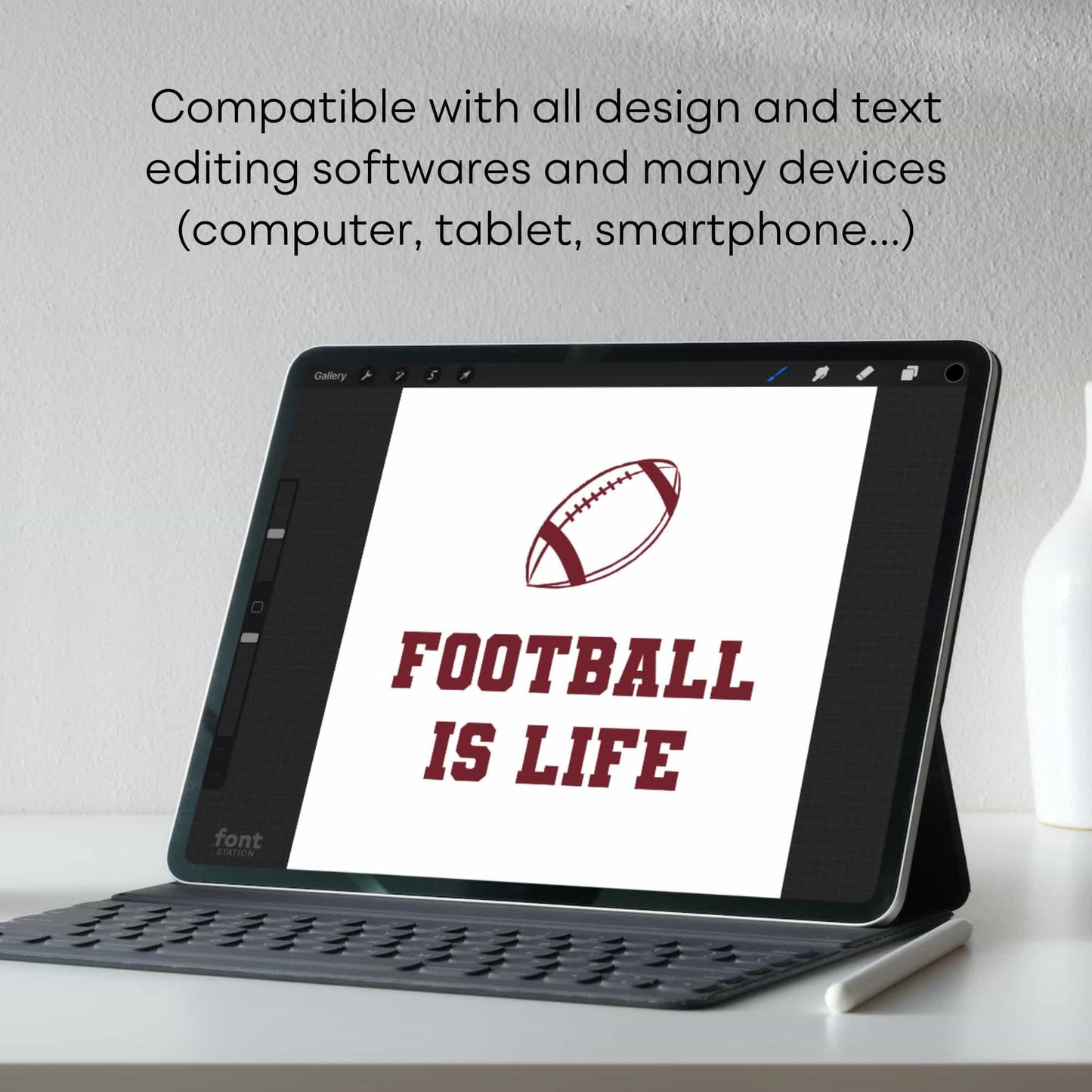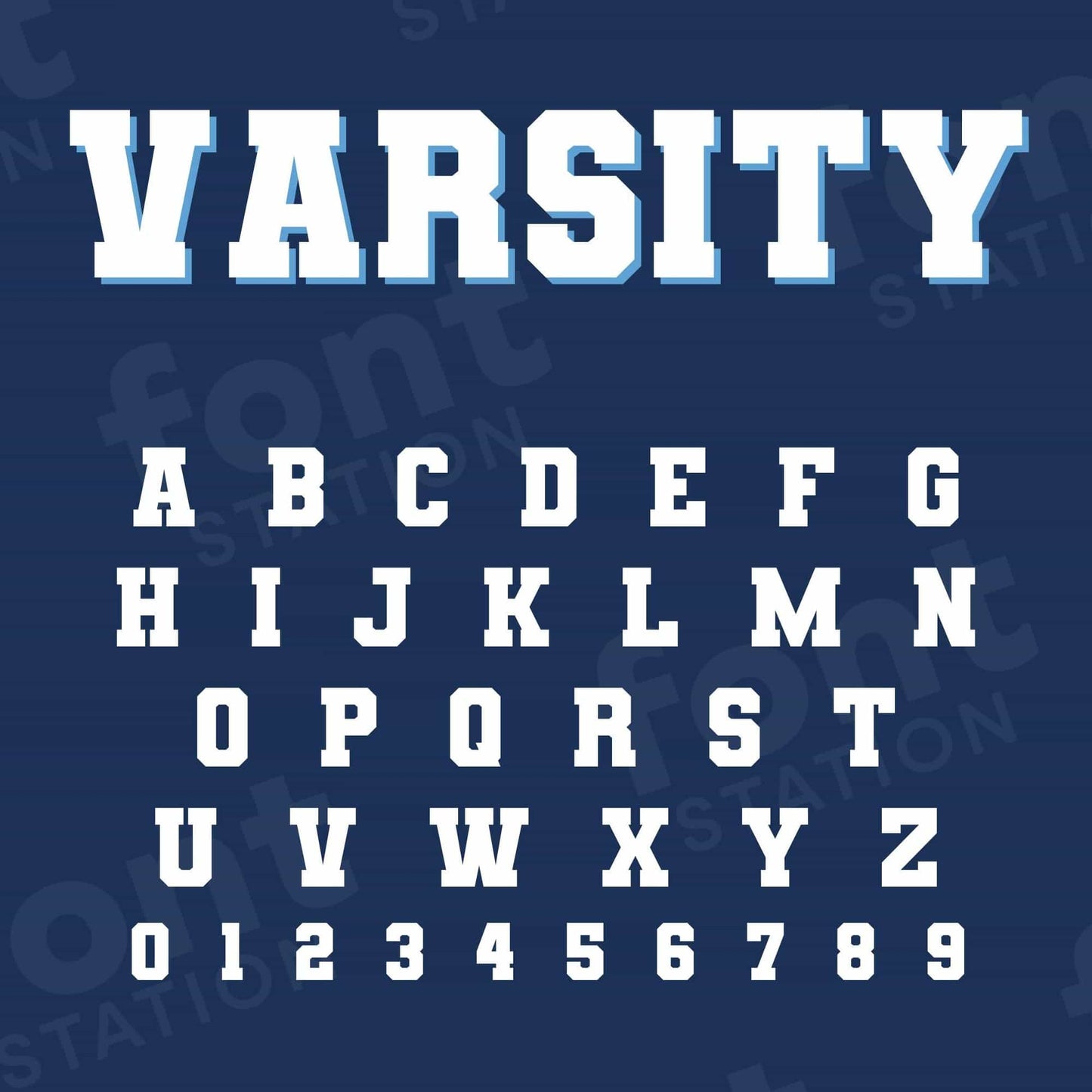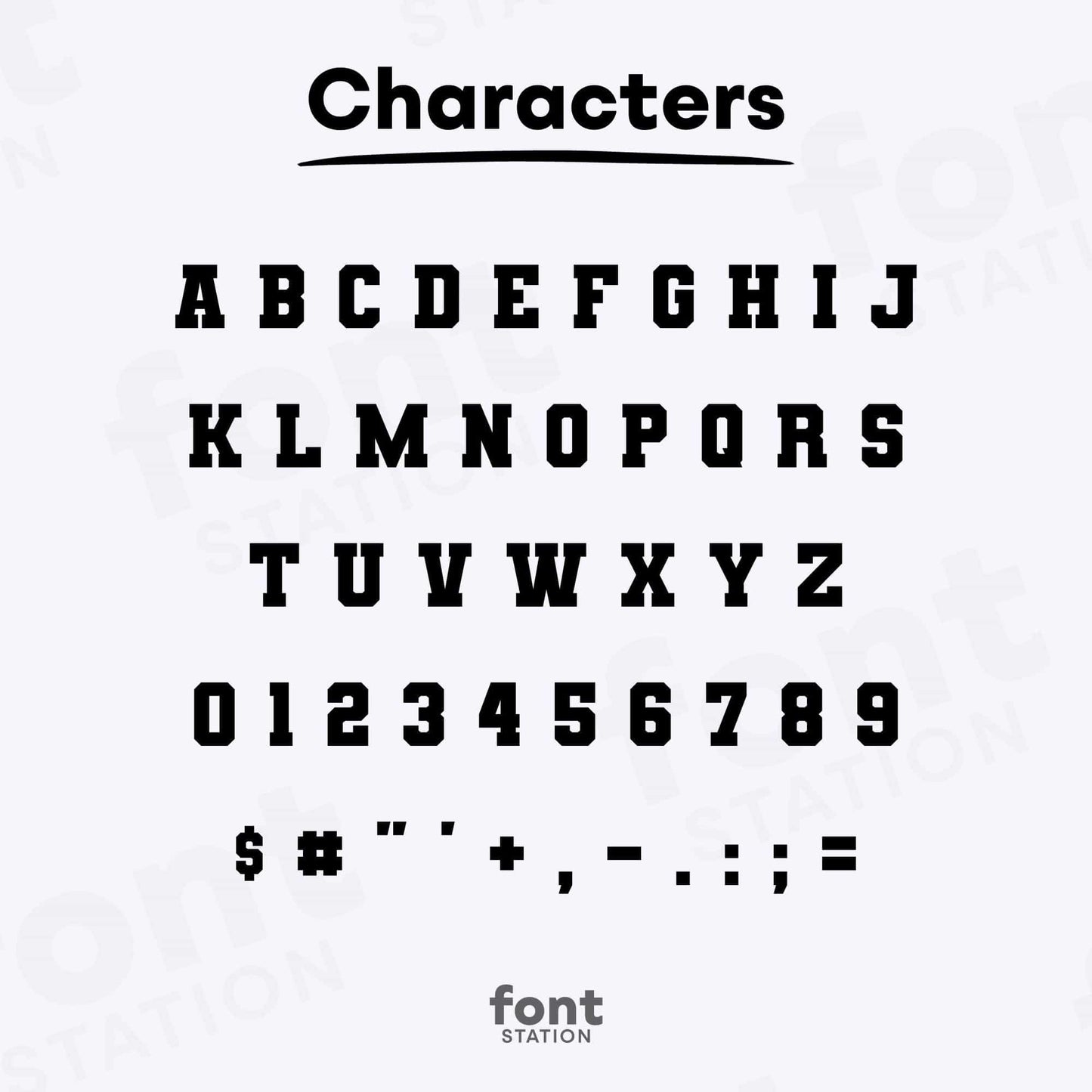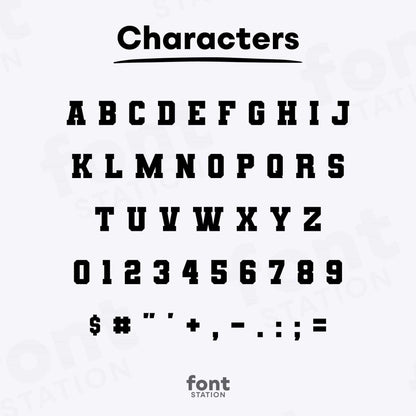
Varsity Sports Font
Our Varsity Sports font, inspired by the US Football Jersey font, is ideal for your creations! This font is provided in multiple formats, ensuring compatibility with a wide range of software such as Cricut, Canva, Microsoft Word, Silhouette and more.
Our Varsity Sports typeface, inspired from US Football Jersey font
Unlock Your Creativity with our US Football Jersey Font: A versatile font that you can use in any of your projects!
Grab your computer, tablet or other device and start creating right now with our US Football Jersey font letters! Our Varsity Sports typography is inspired from US Football Jersey font, making it ideal for various digital creations (logo, word...), sublimation, cake toppers, stickers, event decorations, and more.